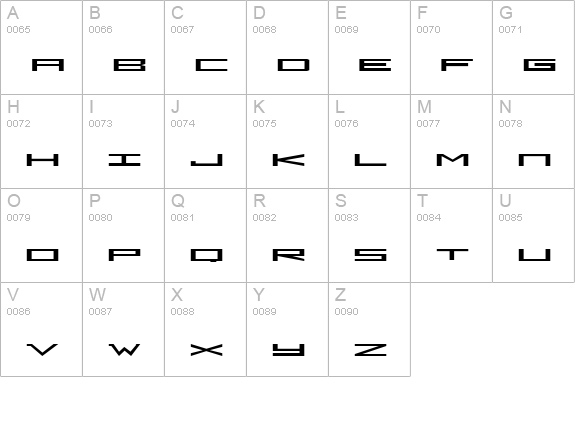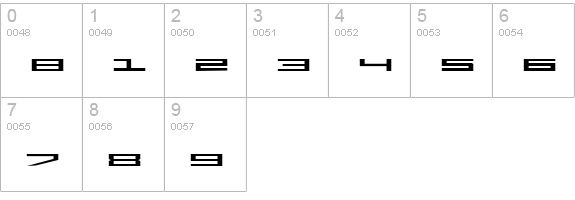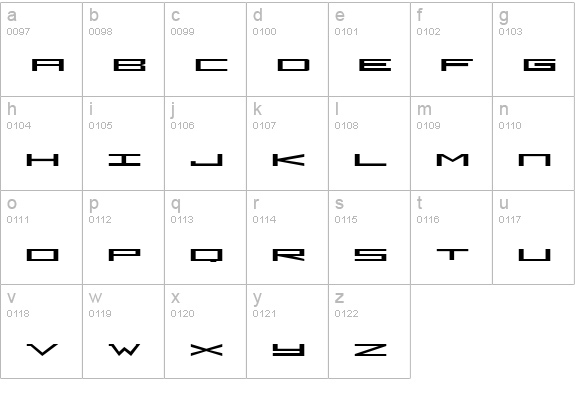
Dark Empire Font Details
Discover the captivating allure of Dark Empire font, a striking typeface that exudes mystery and sophistication. With its bold and edgy design, this font is perfect for projects that demand a touch of drama and intrigue. The sharp angles and intricate details of Dark Empire make it stand out on any design, adding a powerful and commanding presence. The best part? Dark Empire font is completely free to download at FontsMarket.com, giving you the opportunity to elevate your projects without breaking the bank. Whether you're working on a poster, logo, or branding materials, Dark Empire font will make a statement and leave a lasting impression. Embrace the darkness and download Dark Empire font today to unlock its endless creative possibilities.